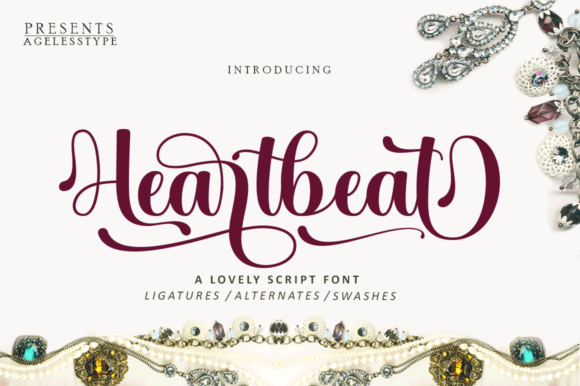
Heartbeat Family Font
Flourish your designs with the Heartbeat Family Font, a captivating script typeface brimming with love and romance. This exquisite font family, crafted with artistry by Cropstudio, is a true testament to the power of heartfelt expression. Dive into the world of Heartbeat and discover an array of breathtaking flourishes, calligraphy-inspired letters, and alluring washes, designed to ignite your creativity and infuse your projects with passion.
Indulge in a Symphony of Styles:
With the Heartbeat Family Font as your creative ally, possibilities are infinite. Embark on a typographic journey filled with stylistic variations, each possessing a unique charm and elegance. From sweeping swashes that dance across the page to charming calligraphic letters that exude a touch of whimsy, Heartbeat is an artistic chameleon, effortlessly adapting to your diverse design needs. Whether you seek a playful vibe or a romantic flair, Heartbeat's versatile nature ensures you'll find the perfect match.
Ignite Your Creativity:
Heartbeat Family Font is a muse for creative minds, a spark that ignites imagination and sets your designs ablaze with brilliance. Transform mundane texts into captivating works of art, whether you're crafting personalized cards, heartfelt invitations, or enchanting social media posts. With Heartbeat as your font of choice, your designs will captivate audiences, leaving an indelible mark on their hearts and minds.
A Touch of Romance:
Capture the essence of love and romance with Heartbeat Family Font, a font that speaks straight to the soul. Unleash your inner artist and create stunning wedding invitations, love letters, or heartfelt cards that convey the depth of your emotions. Heartbeat's enchanting characters, adorned with delicate flourishes and flowing lines, will add a touch of magic to your romantic creations, making them cherished keepsakes that tell tales of love and affection.
Make Your Mark:
Heartbeat Family Font is more than just a font; it's a statement of individuality, a way to make your creative expressions stand out from the crowd. Whether you're a seasoned designer seeking to elevate your work or a passionate hobbyist yearning to add a personal touch to your projects, Heartbeat empowers you to leave an unforgettable impression. Embrace the boundless possibilities and watch as your designs blossom into works of art that reflect your unique style and vision.